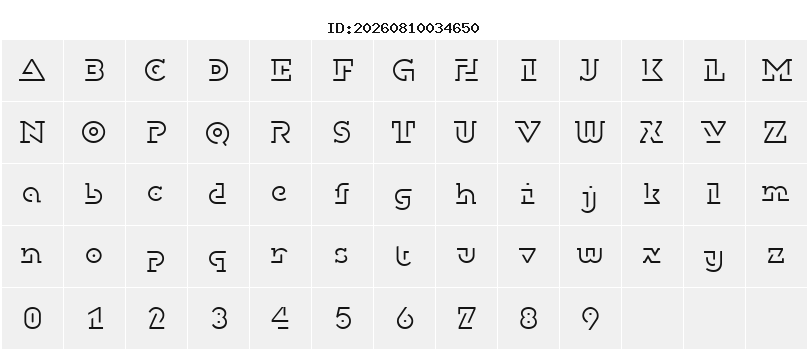
• Font Name: DublonBrusLightC
• Full Font Name: PT DublonBrusLight Cyrillic
• Description: Designed in 1999 for ParaType, based on the original artwork of the Ukrainian graphic designer Oleg Karpinsky (Vinnitsa). For use in advertising and display typography.
About DublonBrusLightC.ttf
DublonBrusLightC.ttf is a modern, elegant sans-serif font designed for ultimate readability and visual harmony. Perfect for branding, headlines, web design, and print materials.